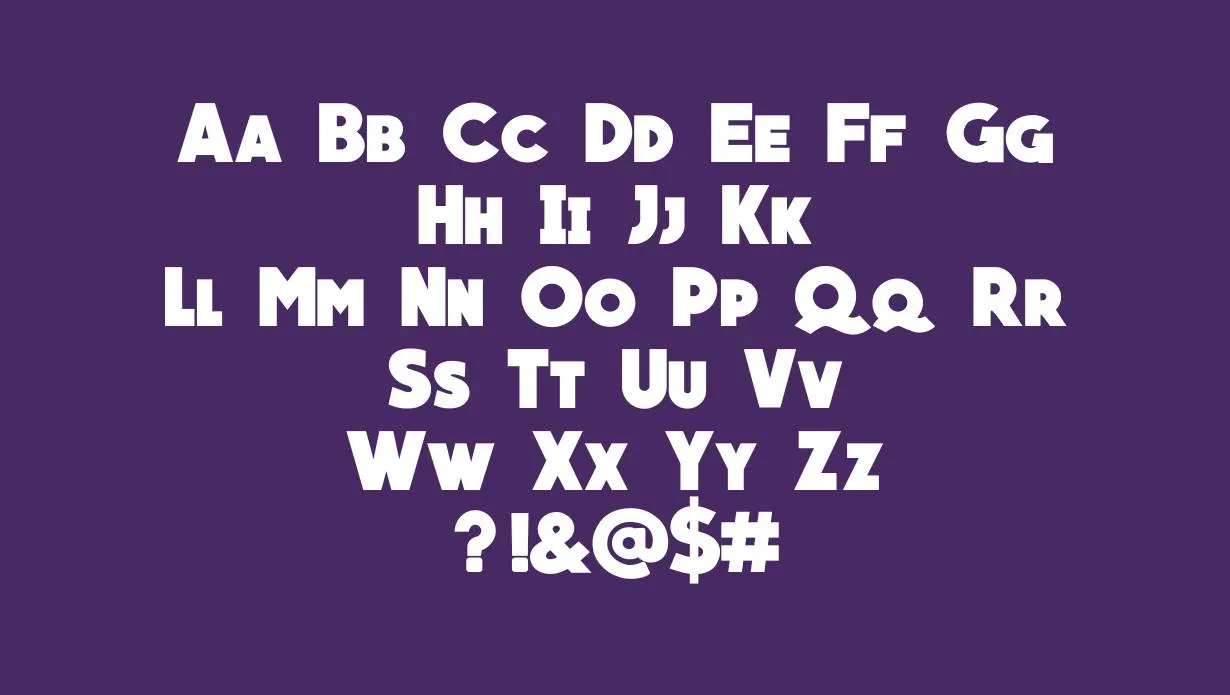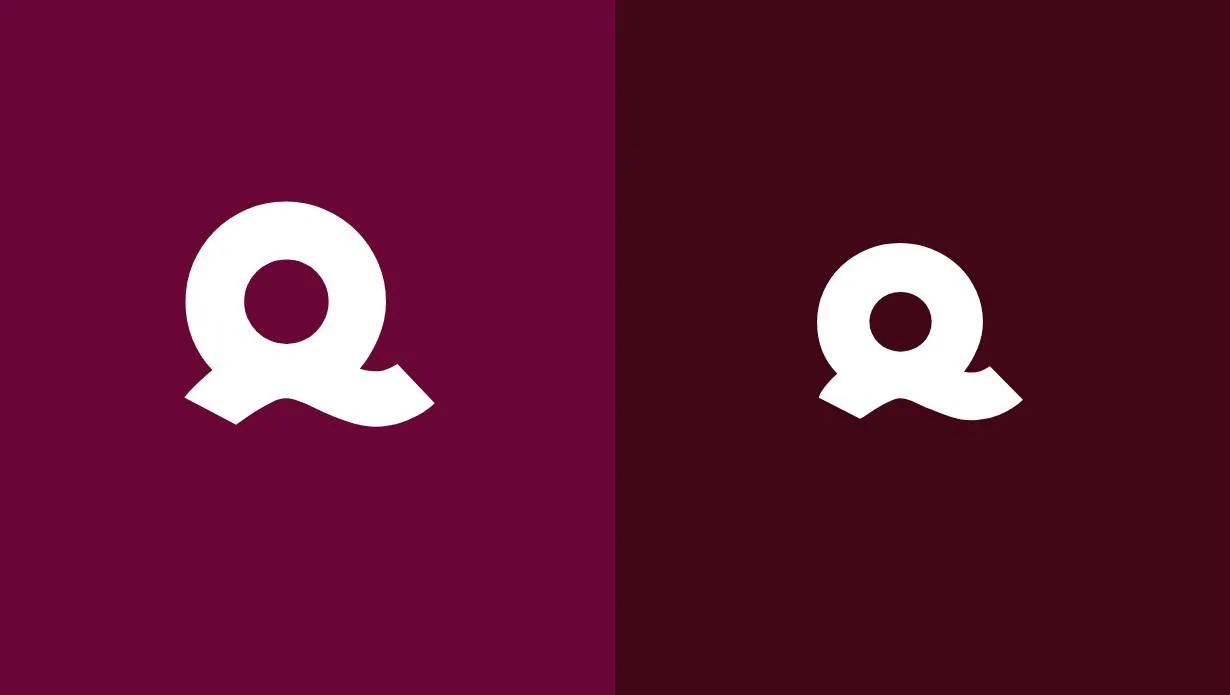
Quartzo Font is designed by Guilhem Greco and manufactured by Herofonts. The look of this font is very attractive and bold. You can use it for making headlines, logos, and titles for different movies, video games, and newspapers.
This font has amazing features which makes it perfect for use in different projects. It has 258 characters, 256 glyphs, and 1000 units per Em.
Quartzo Font Family
The weight of this font is extra-bold and its width is medium(normal). You can also use it for pairing with other fonts like gravity points font to give a more attractive look to your projects.